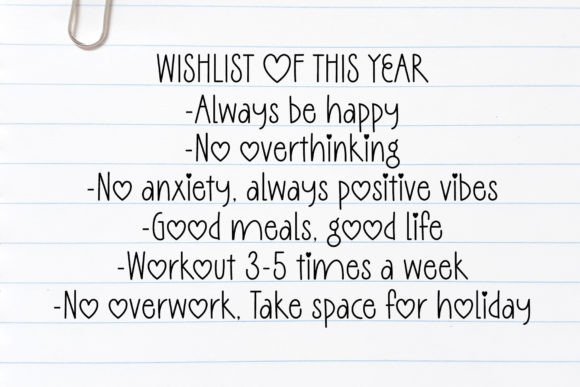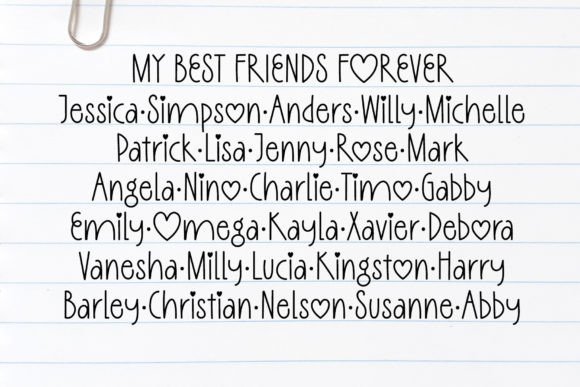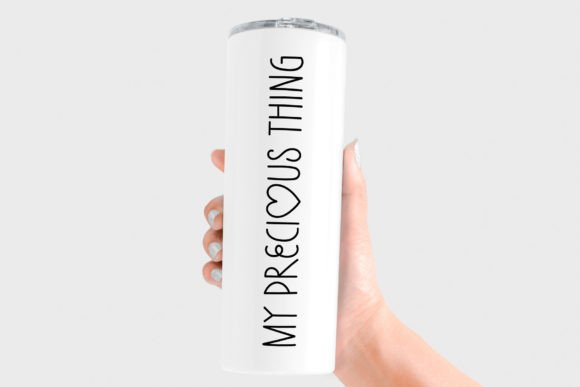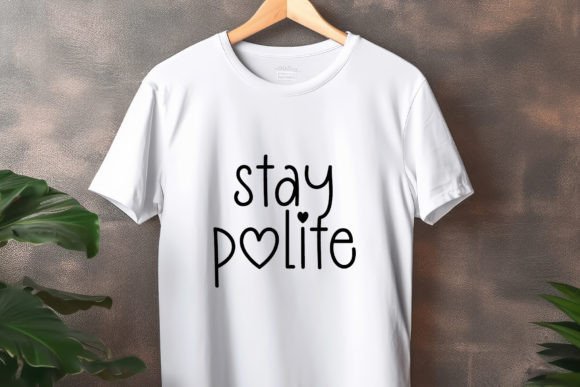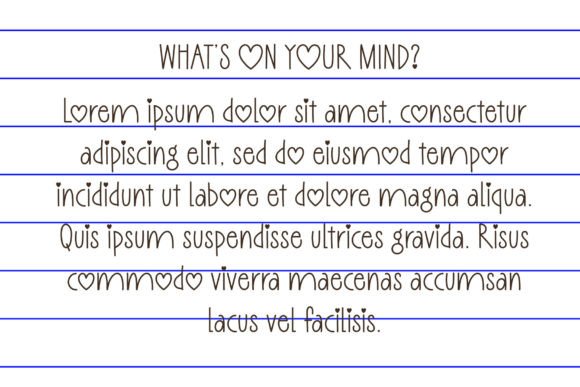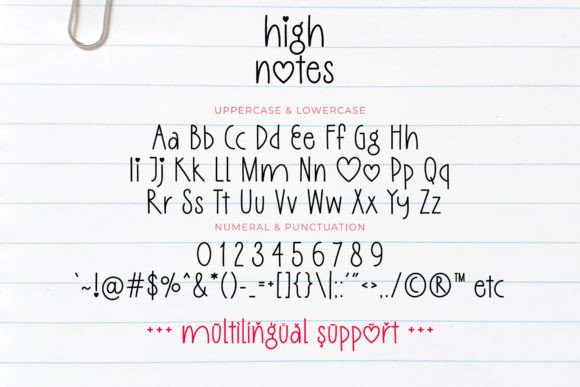
The High Notes Font: A Cute and Playful Companion for Your Designs
I’ll never forget the time I was working on a back-to-school project for a client, and I just couldn’t find the right font to match the playful vibe they wanted. The design needed something cute, fun, and engaging, but everything I tried seemed either too boring or too over-the-top. That’s when I stumbled upon the High Notes font, and it instantly became my go-to for a wide range of creative projects.
What I Love About High Notes ✨
- ✅ Simple yet adorable handwritten style that’s perfect for a variety of designs
- ✅ Easy to pair with other fonts for a unique look
- ✅ Great for both digital and print projects
- ⚠️ Limited character set compared to some other fonts
- ⚠️ Not ideal for very formal or professional designs
- Take advantage of OpenType features like glyphs and stylistic alternates to add variety to your text
Exploring Alternatives: Similar Fonts to High Notes
If you love High Notes, you might also enjoy these similar fonts:
- Lobster: A more elegant, cursive script that’s great for headings and titles
- Pacifico: A beautiful, modern script font perfect for designs needing a relaxed vibe
- Great Vibes: A fun, handwritten font ideal for creative projects and party invitations
- Karla: A versatile, sans-serif font great for body text and pairing with High Notes
The Story Behind High Notes: Designer Inspiration
High Notes was created with the intention of bringing a touch of whimsy and playfulness to designs. The designer aimed to craft a font that was not only cute and fun but also highly legible and versatile. The result is a font that’s perfect for a wide range of creative projects, from back-to-school designs to birthday invitations and more.
Q: Can I use High Notes for both digital and print projects?
A: Absolutely! High Notes is designed to work well in both digital and print formats.
Q: Does High Notes support OpenType features?
A: Yes, High Notes supports OpenType features, including glyphs and stylistic alternates, which can add variety to your text.